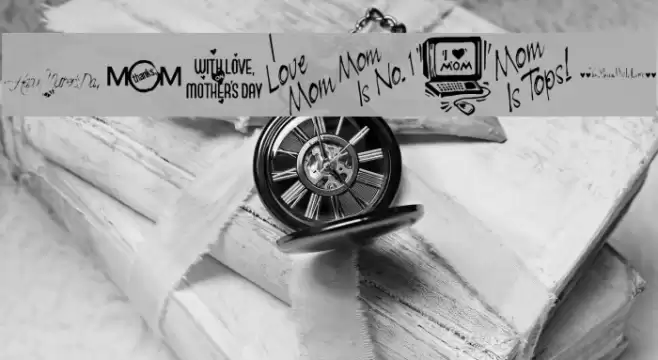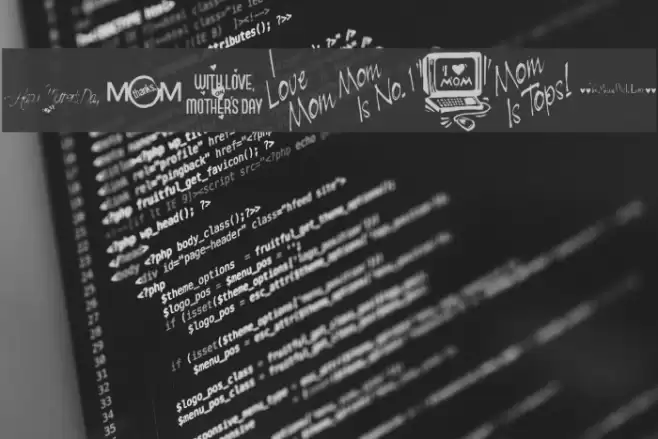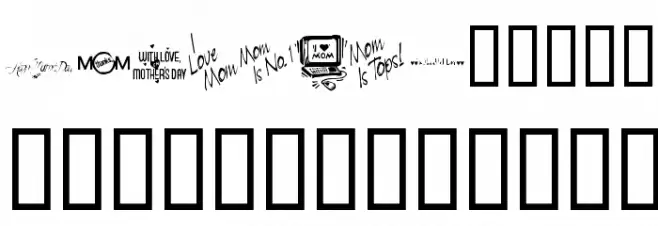
KR Mother's Day Dings Font
KR Mother's Day Dings Description
This is a decorative font featuring playful and thematic designs centered around Mother's Day. It includes a variety of whimsical and artistic elements such as hearts, flowers, and celebratory phrases. The characters are creatively integrated with illustrations, making it ideal for festive and heartfelt designs. The font captures a joyful and loving essence, perfect for projects that aim to convey warmth and appreciation. Its unique style makes it stand out, with each character offering a distinct visual element that contributes to the overall theme.
A decorative font with Mother's Day-themed designs and playful elements from Uncategorized fonts.
- Proposed Projects: Ideal for Mother's Day cards, posters, gift tags, and scrapbooking projects.
- Use Case: Headlines, Decorative text, Themed projects